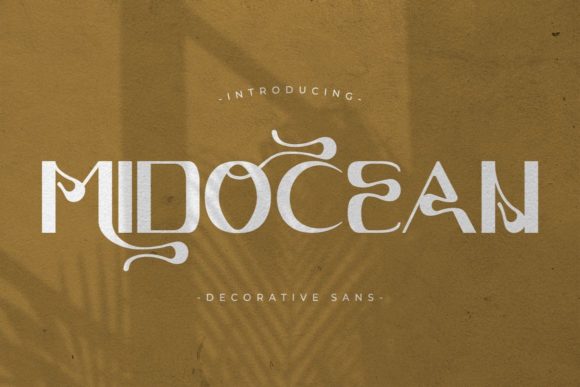
Introducing Midocean Font, the decorative font family that will add a touch of elegance to your designs. Inspired by the unique typography and lettering of the Javanese alphabet, Midocean is a captivating font that is perfect for creating eye-catching magazine ads, logos, posters, and more.
With its distinctive letterforms and ligatures, Midocean is a font that will make your words stand out from the crowd. Whether you're looking to create a bold and impactful headline or a sophisticated and refined design, Midocean is the perfect font for the job.
Designed by the talented putracetol, Midocean is a font that is sure to turn heads. Its carefully crafted details and unique style make it a font that will leave a lasting impression.
So if you're looking for a font that will add a touch of sophistication and style to your designs, then look no further than Midocean. With its wide range of applications, from print to digital, Midocean is the perfect font for any creative project.
Here are some of the things you can create with Midocean:
* Magazine ads that are sure to grab attention
* Logos that will make your brand stand out
* Posters that will make a statement
* Product packaging that will make your products fly off the shelves
* Social media posts that will get people talking
* Greeting cards that will show your loved ones how much you care